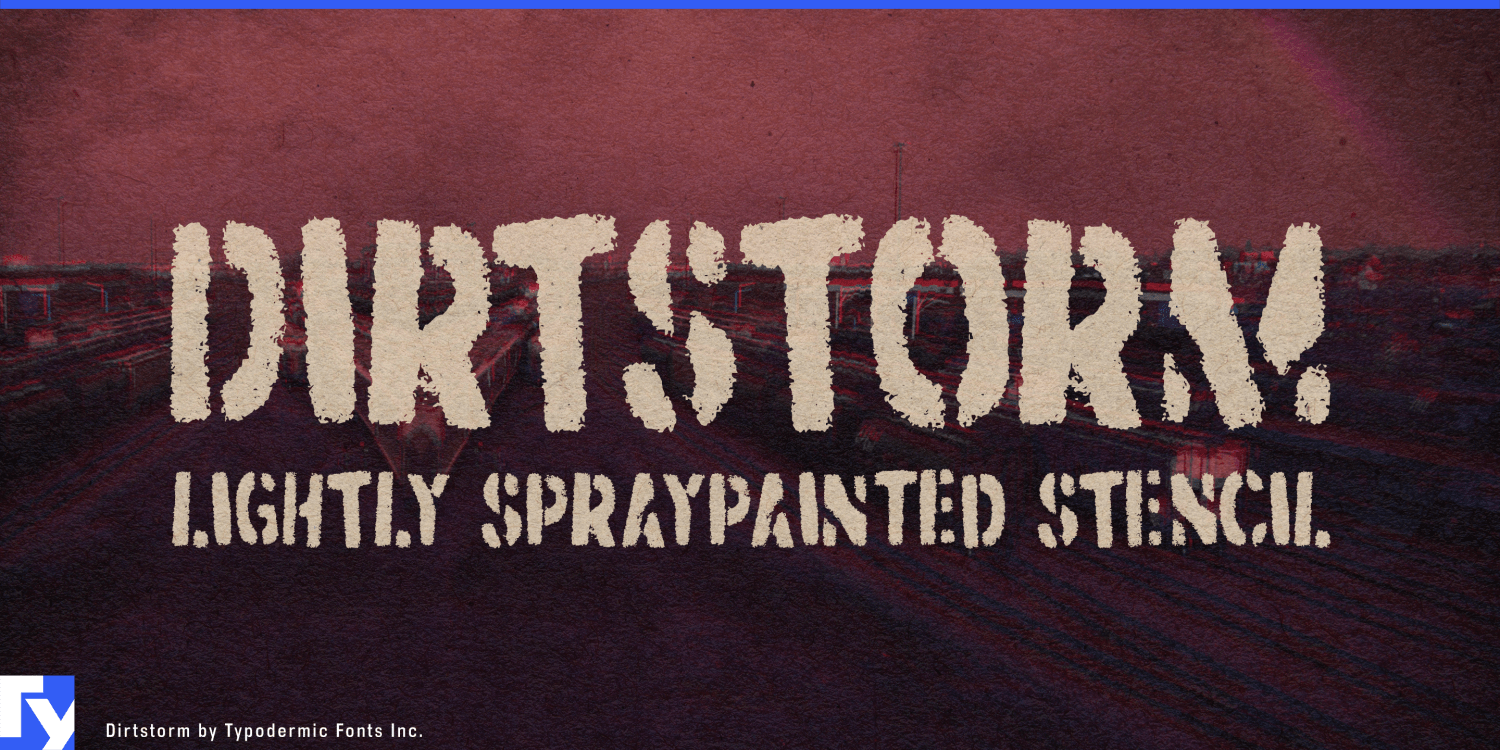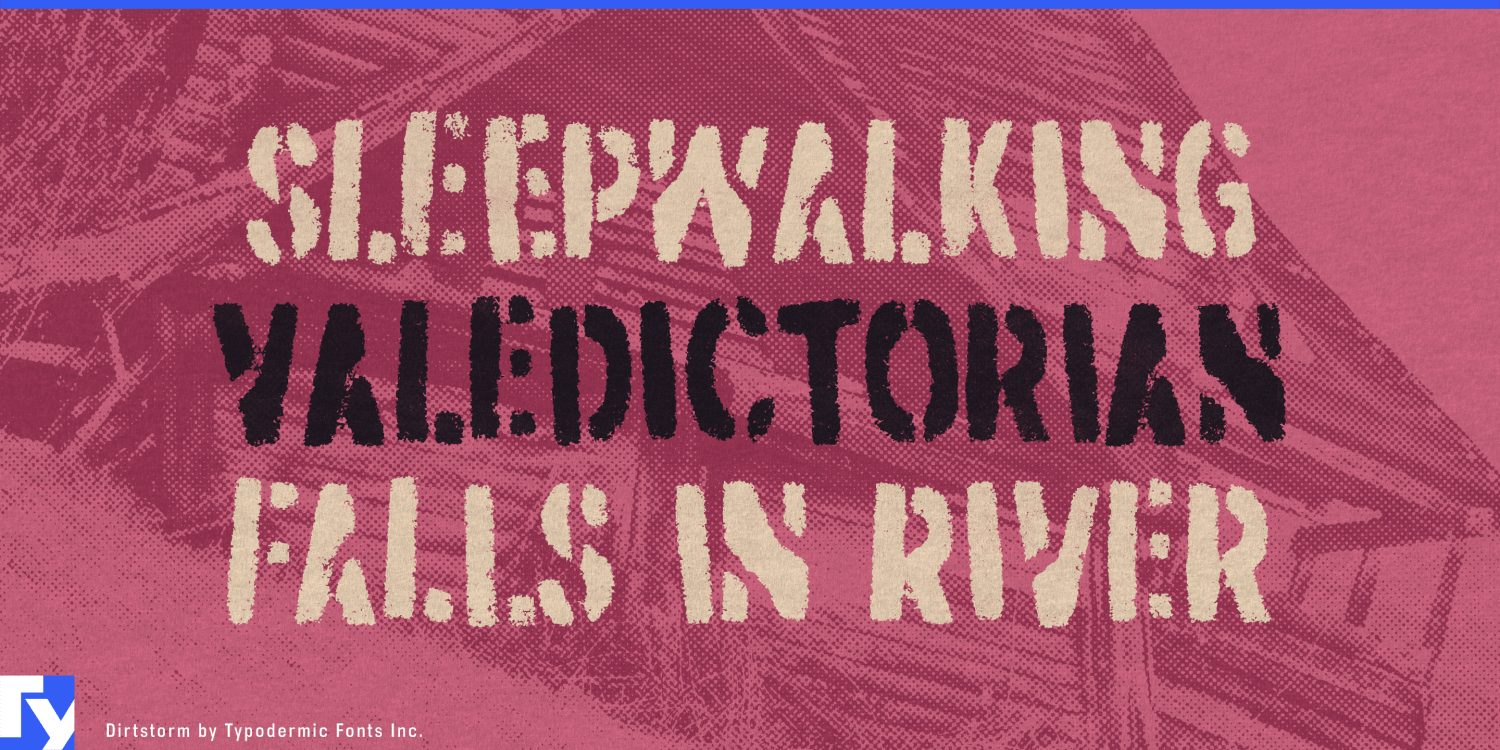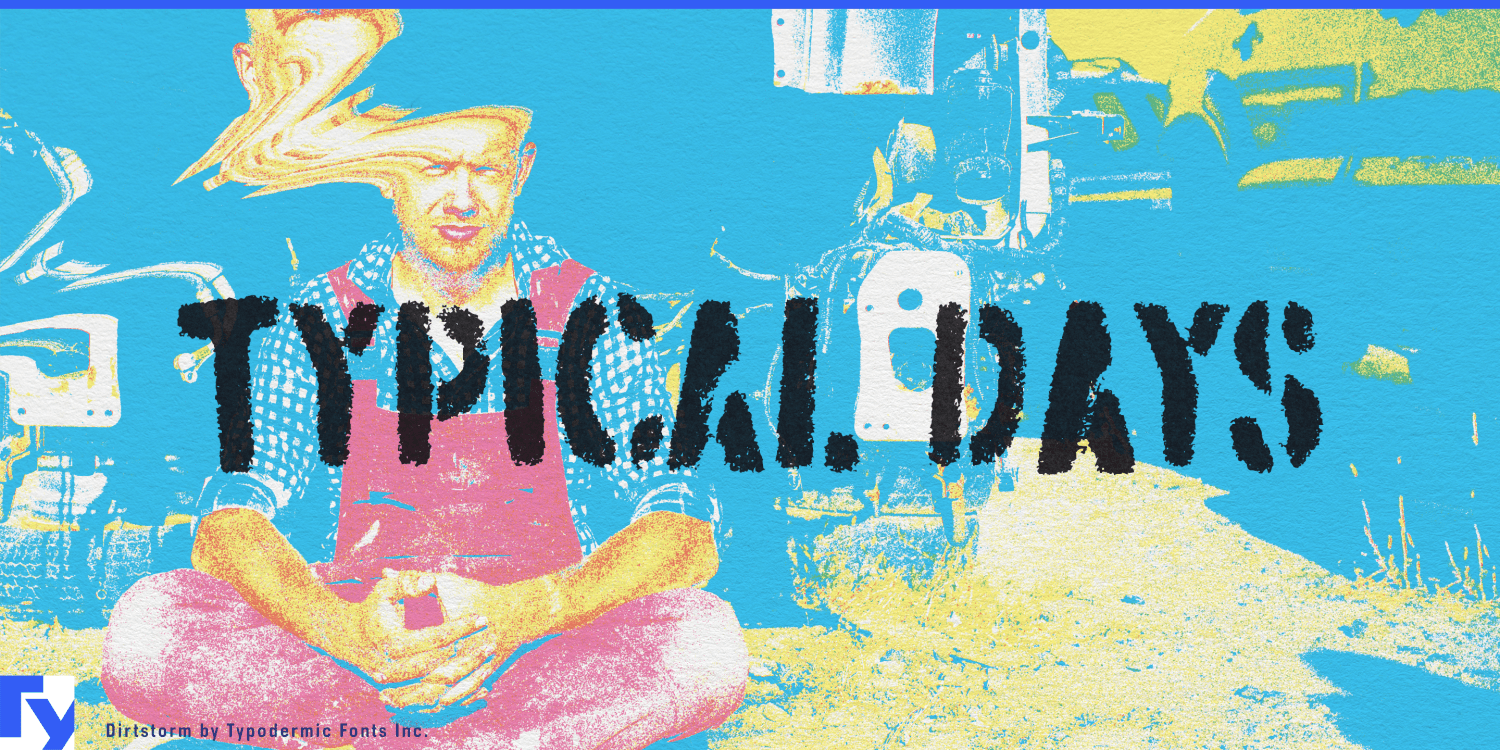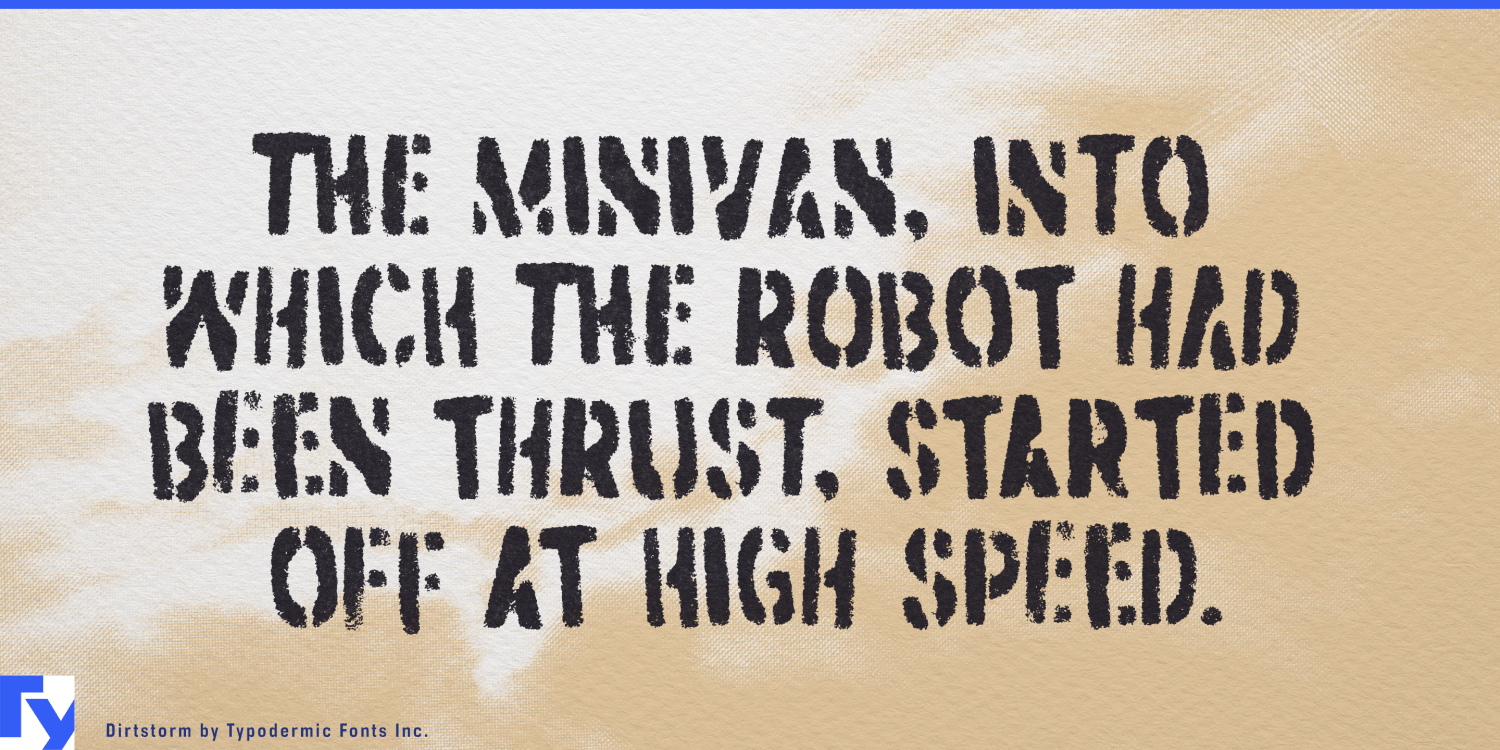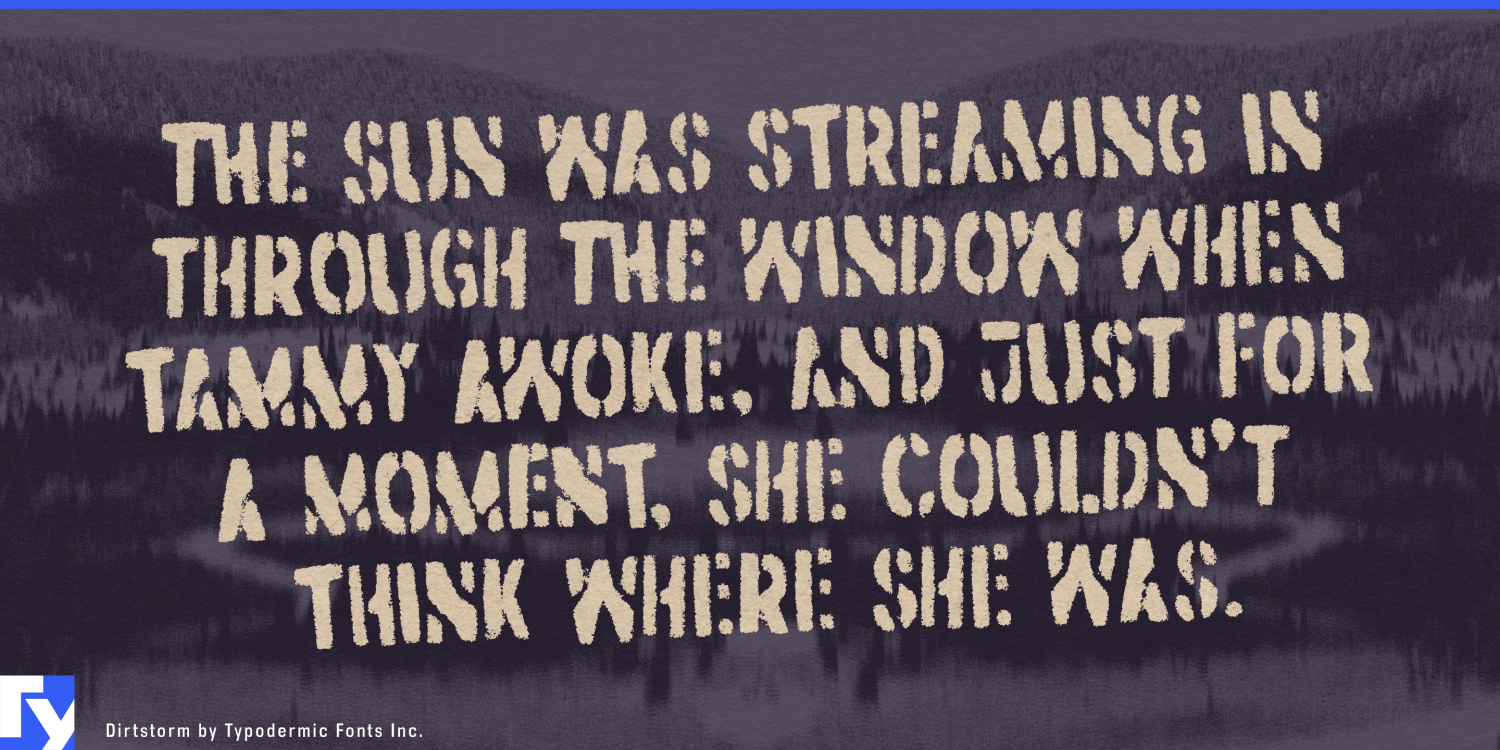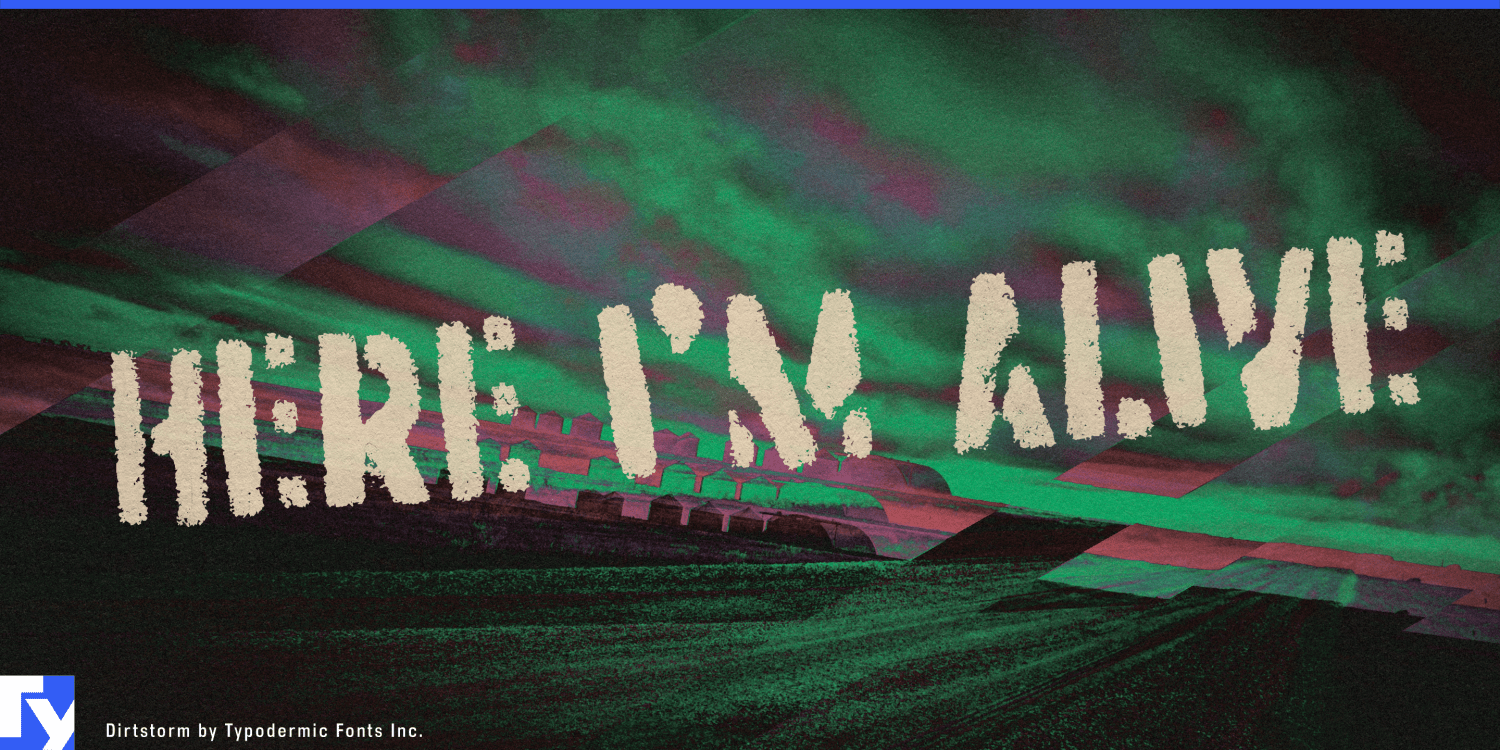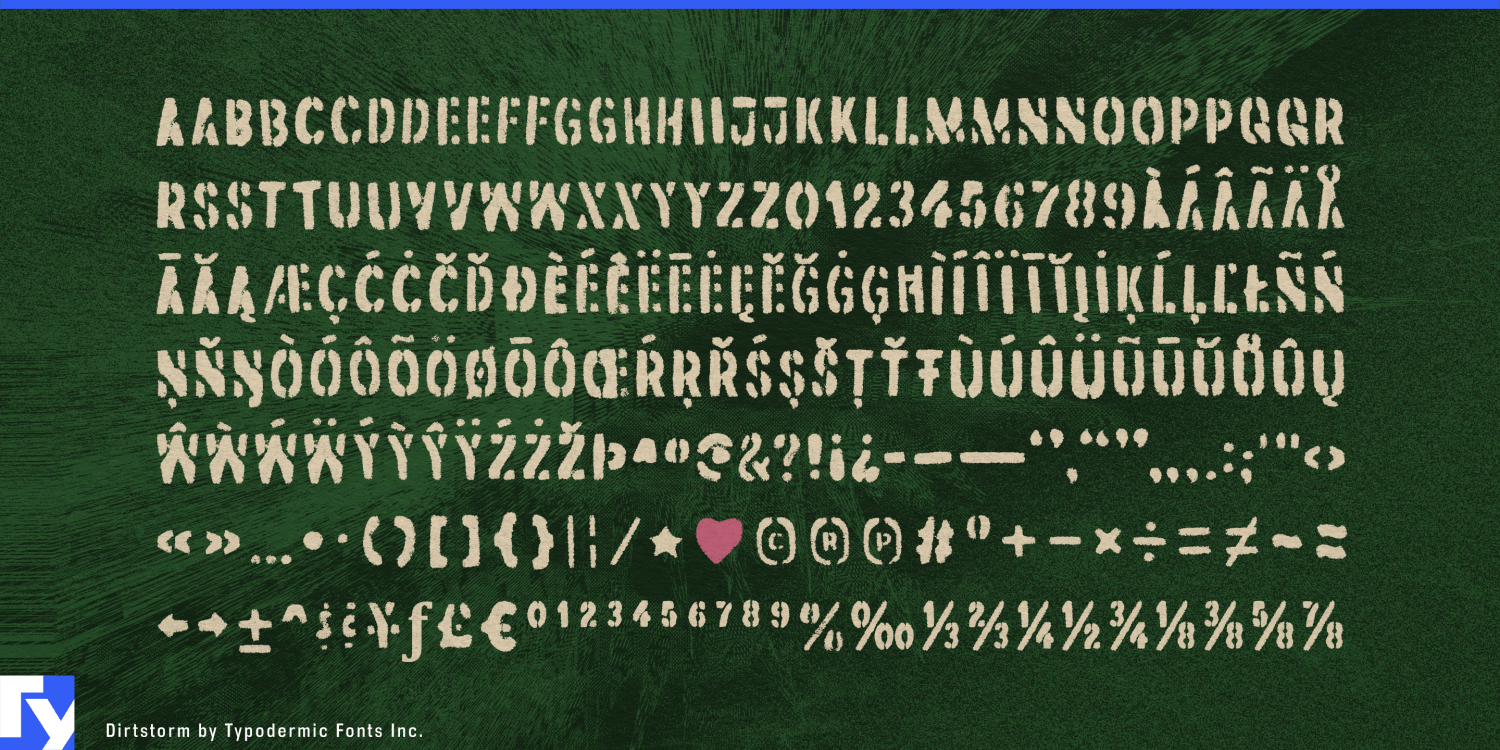
Dirtstorm
Font Family by Typodermic
Dirtstorm gives professionally produced advocacy graphics the directness of a sign sprayed through a hand-cut cardboard stencil. It suits union campaigns, political organizations, environmental fundraisers, and public-interest advertising; the same lettering can move from paid social graphics and web headlines to rally signs, event backdrops, and campaign merchandise without losing its connection to public action.
Its alphabet began with a scammer. One of those too-good-to-be-true internet hustlers was persuaded to make a stencil sign, then unknowingly kept supplying more letters. By the time the exchange ended, enough existed to piece together most of an alphabet. The forms were traced and the missing characters drawn to complete Dirtstorm.
That unusual production method remains visible in the uneven cuts, ragged edges, rough fill gaps, and inconsistent stencil bridges. Letter-pair substitutions introduce alternate shapes automatically, reducing the repetition that often gives away a digital stencil. Doubled letters can resemble two separate passes through the same battered piece of cardboard instead of one form copied twice. The result belongs to public walls and improvised signs rather than military depots.
At the more art-directed end of skateboarding and street fashion, Dirtstorm’s compressed capitals fit naturally across skate decks, garment panels, footwear packaging, and narrow shop displays. The rough texture works over photography, halftones, recycled stock, and hard blocks of colour, making it useful for capsule collections, hangtags, lookbooks, and pop-up installations.
Colour and context can also give Dirtstorm a constructive role. With plant photography, recycled paper, plywood, canvas, or a bright ecological palette, it suits solarpunk publishing, urban-agriculture campaigns, seed packaging, and community-garden identities. The same marks that look confrontational on a protest placard can resemble working labels sprayed onto seed crates, compost bins, and tool sheds.
Dirtstorm is an all-capital display face for short, forceful messages. Use it for campaign slogans, collection names, product titles, and section headings; pair it with a straightforward sans serif for schedules, donation instructions, and product details.